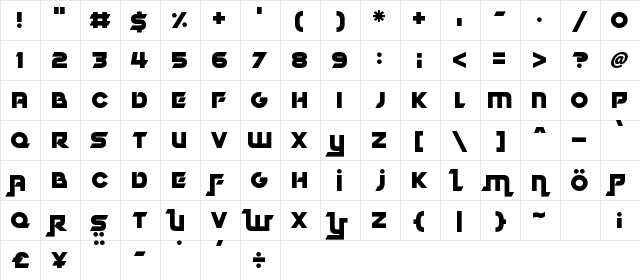
Dubai Dubstep Regular
Design Context for Dubai Dubstep
Dubai Dubstep is a composed and adaptable typeface that performs quietly and consistently across a wide range of design contexts.